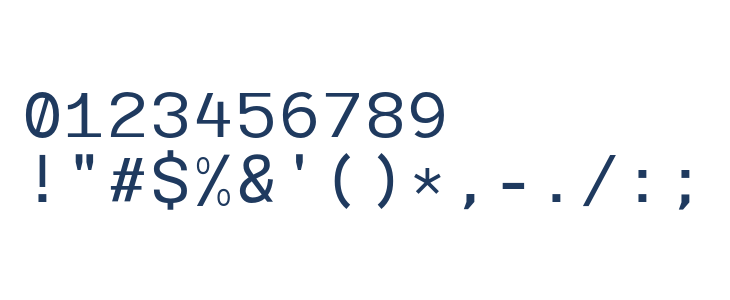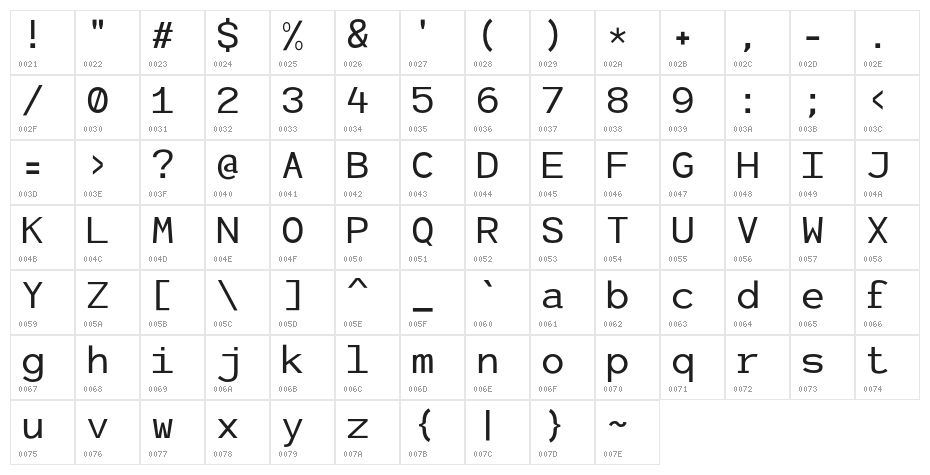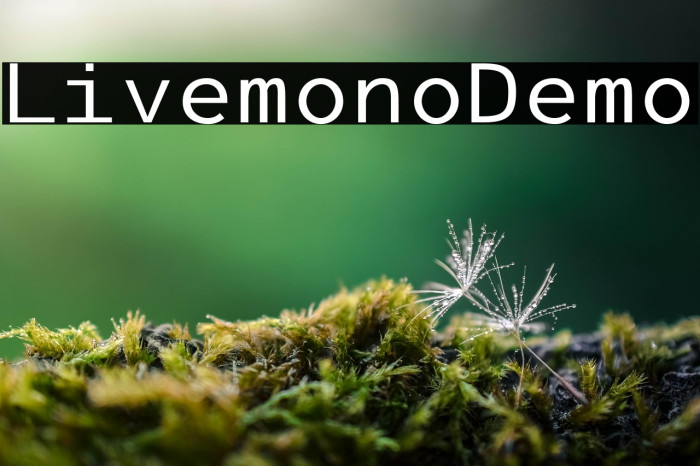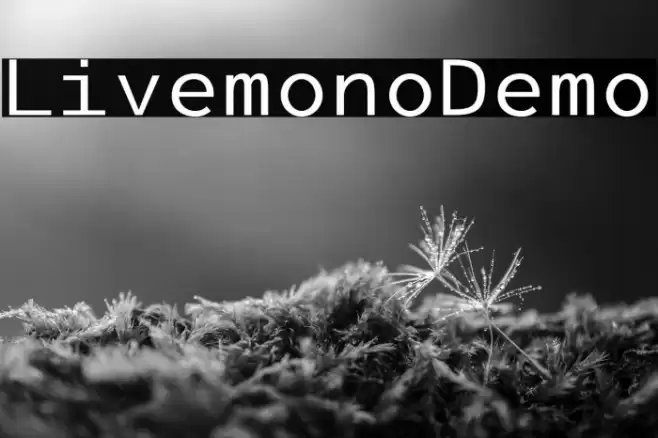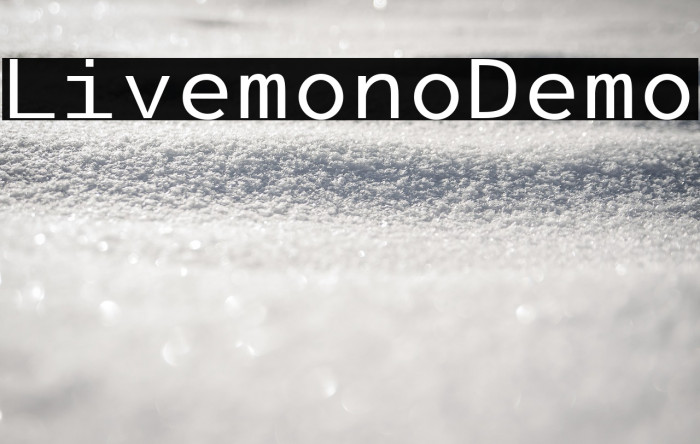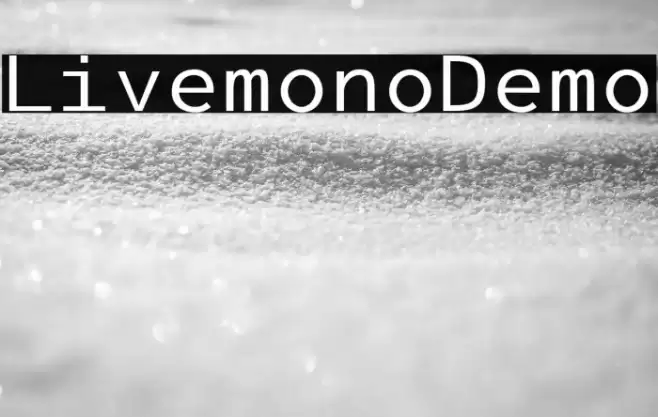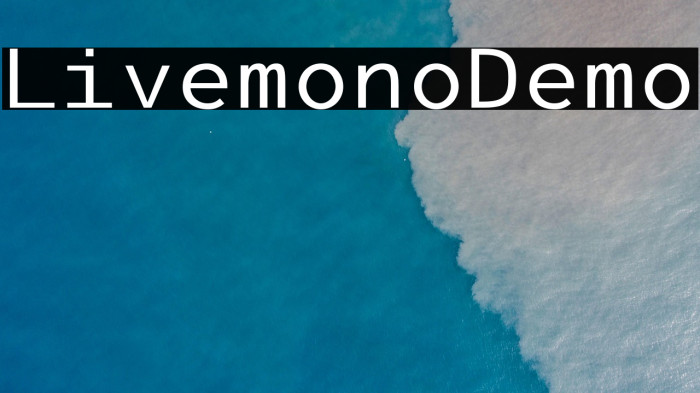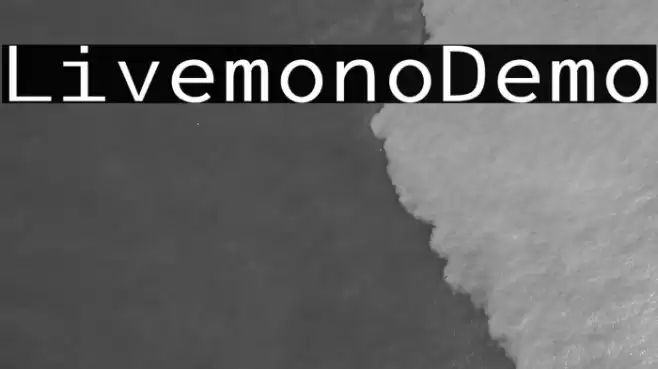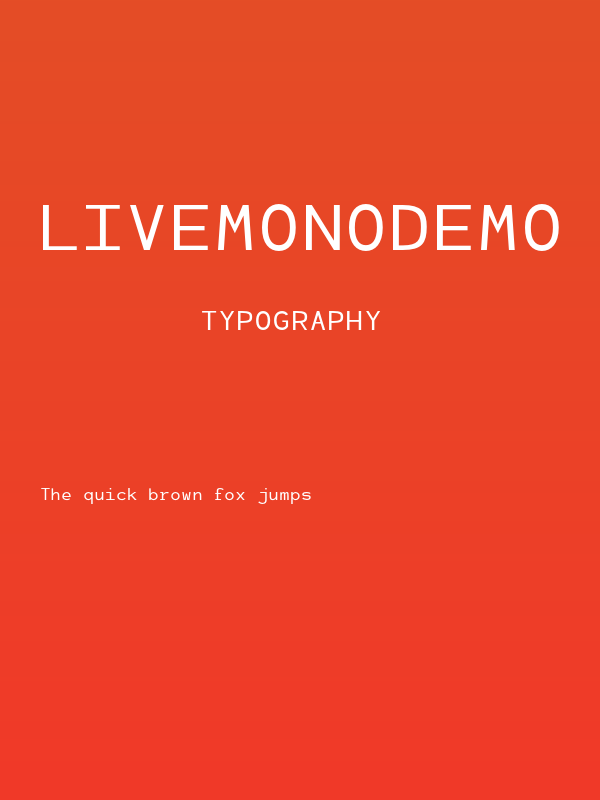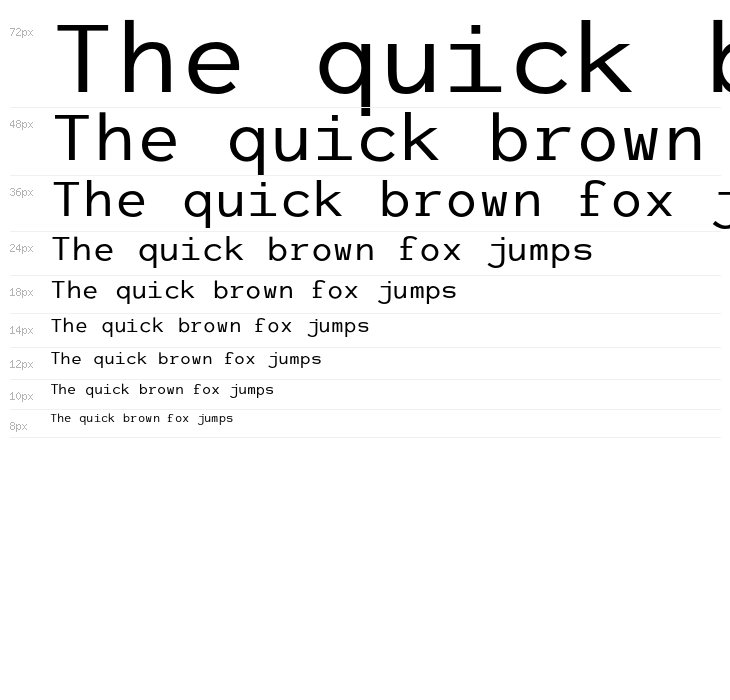
LivemonoDemo Font
LivemonoDemo Description
This font features a clean, modern monospaced design with consistent character width, making it ideal for coding and technical documentation. The characters are well-defined with a uniform stroke width, providing excellent readability. The uppercase and lowercase letters maintain a balanced proportion, while the numerals and special characters are clear and distinct. The overall appearance is minimalistic, with a focus on functionality and clarity, suitable for both digital and print media.
| Use Case | Coding, Technical documentation, Digital media |
| Proposed Projects | Ideal for coding environments, technical documentation, and any project requiring precise alignment of text. |